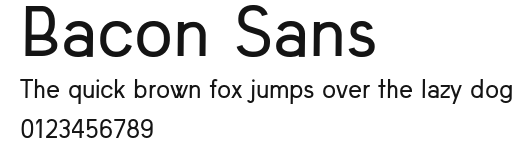
Bacon Sans Preview
About Bacon Sans.otf
Bacon Sans.otf is a modern, elegant sans-serif font designed for ultimate readability and visual harmony. Perfect for branding, headlines, web design, and print materials.